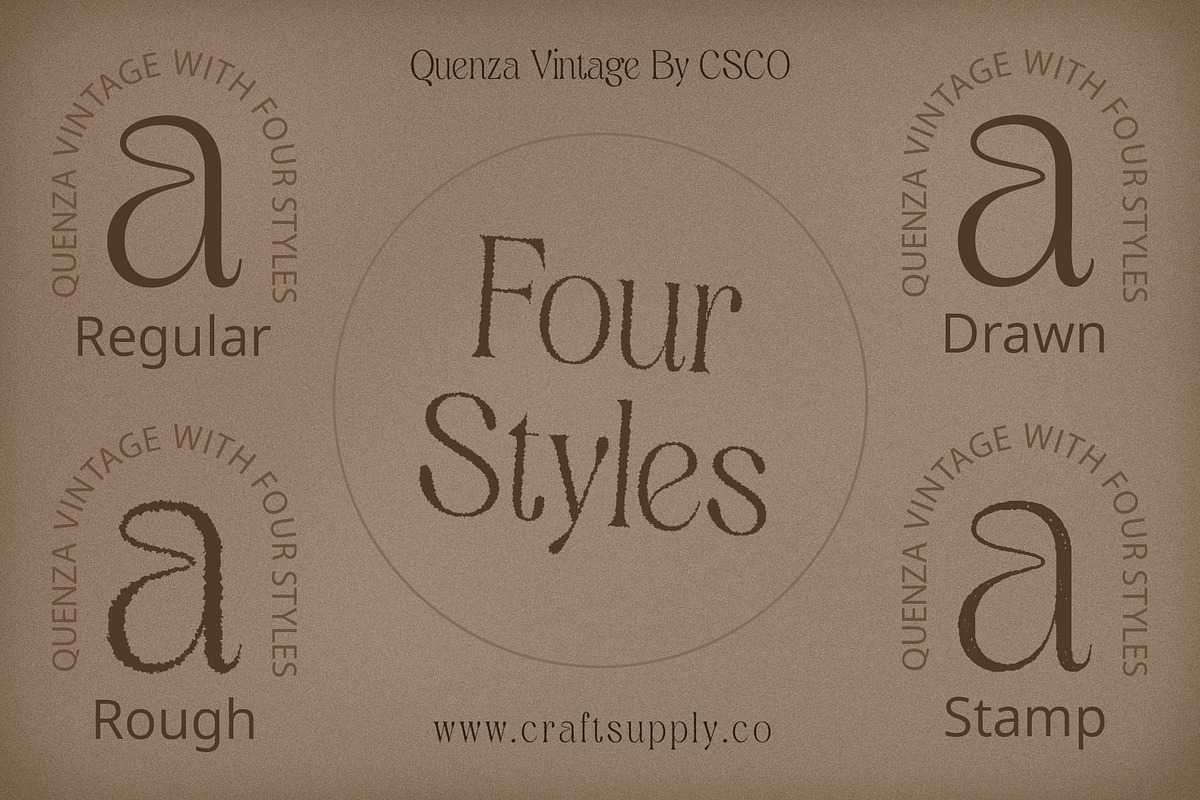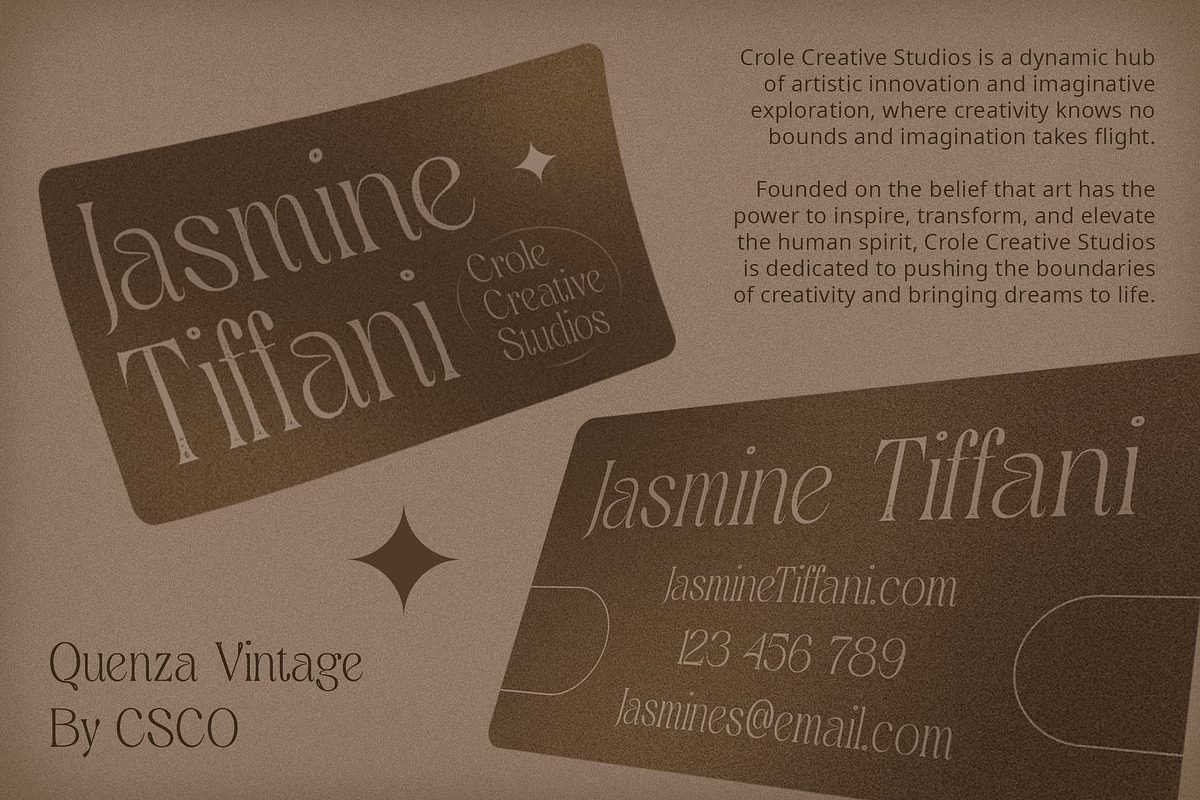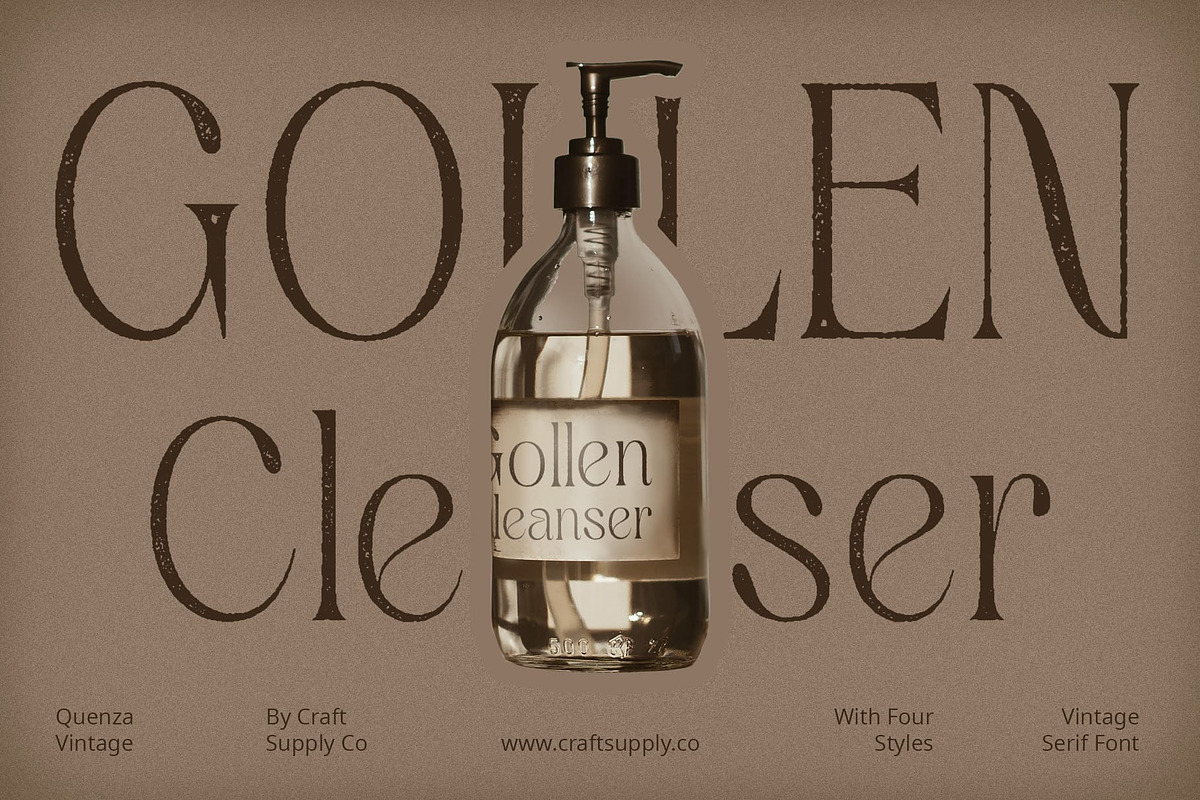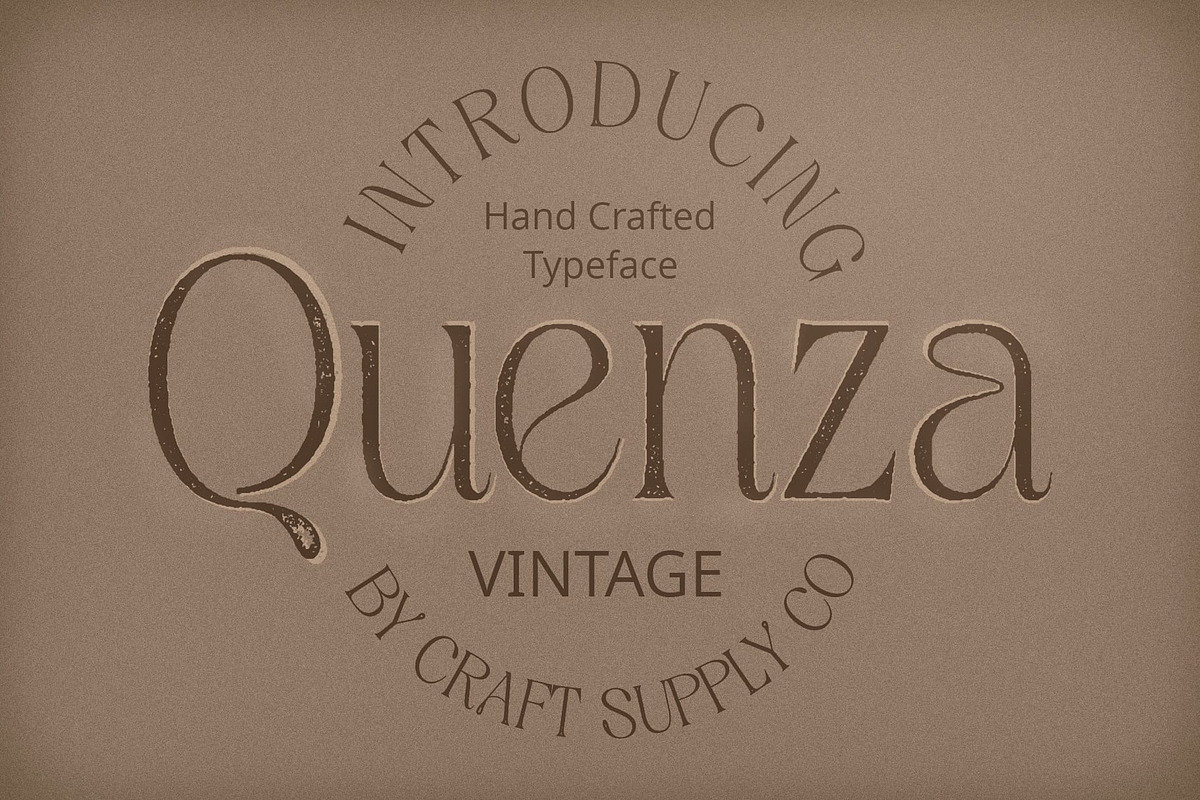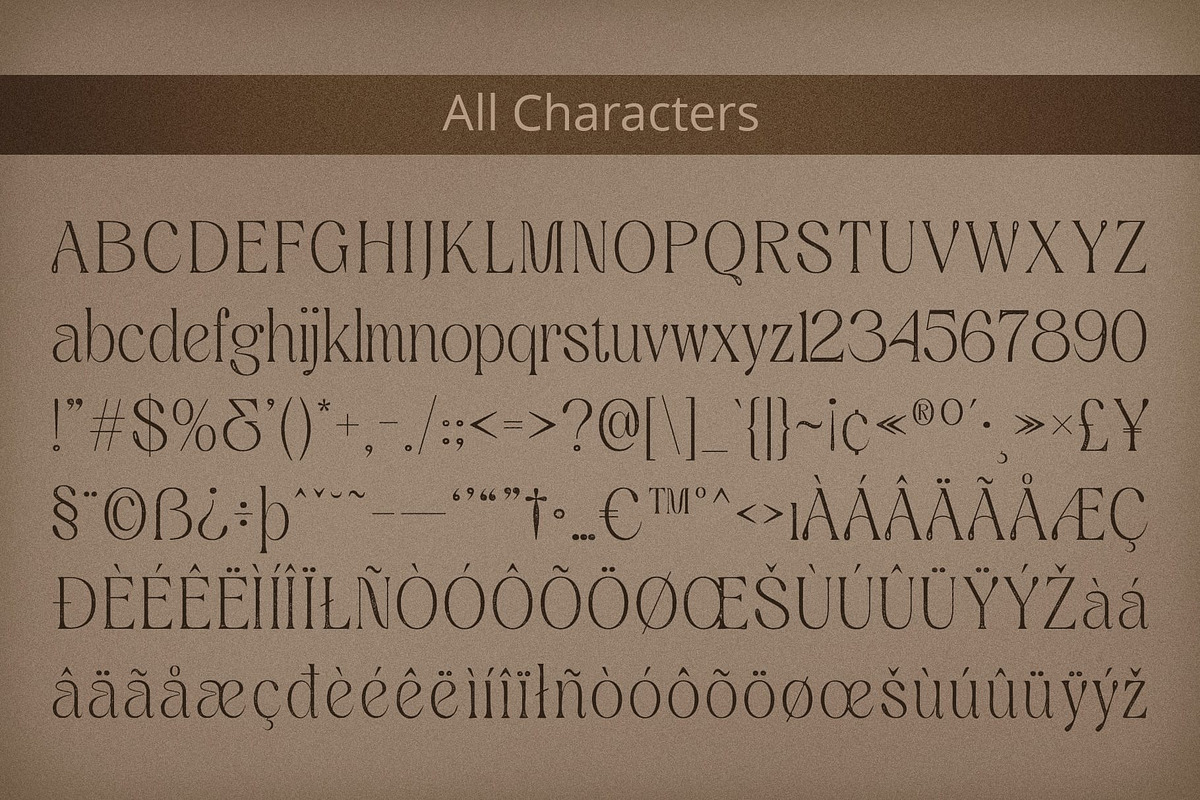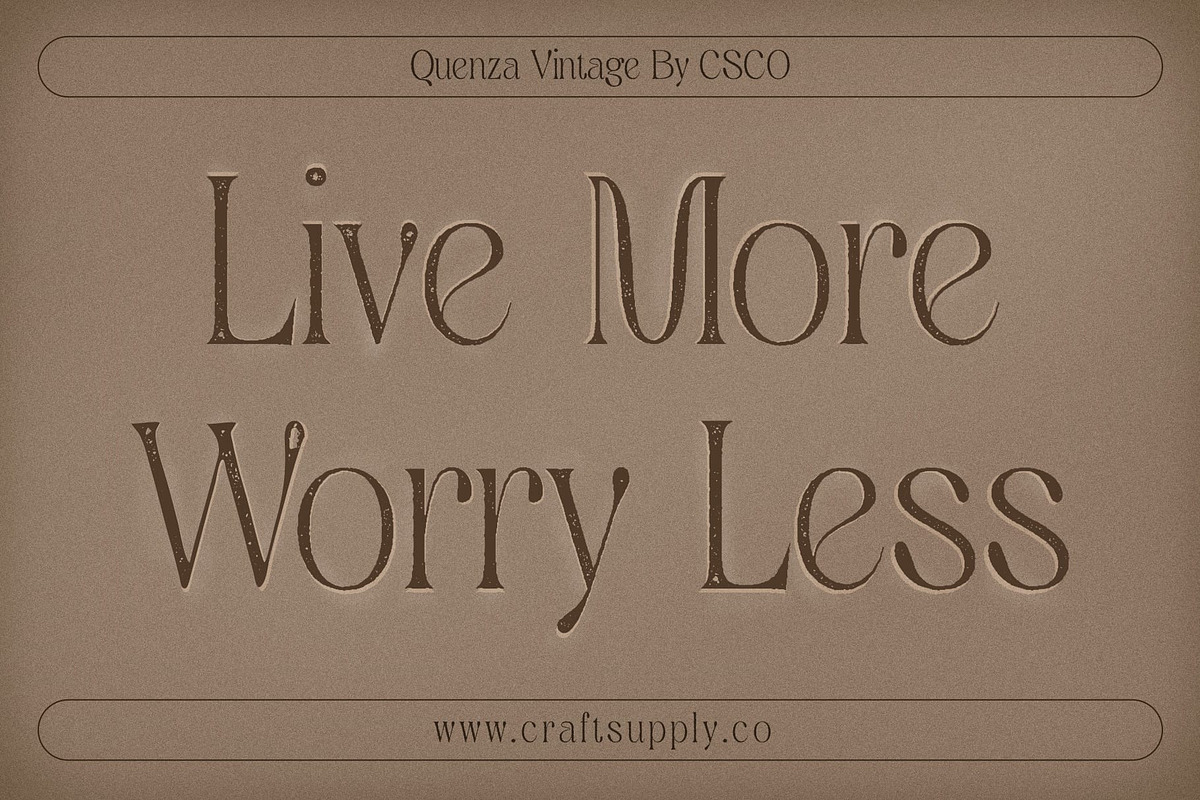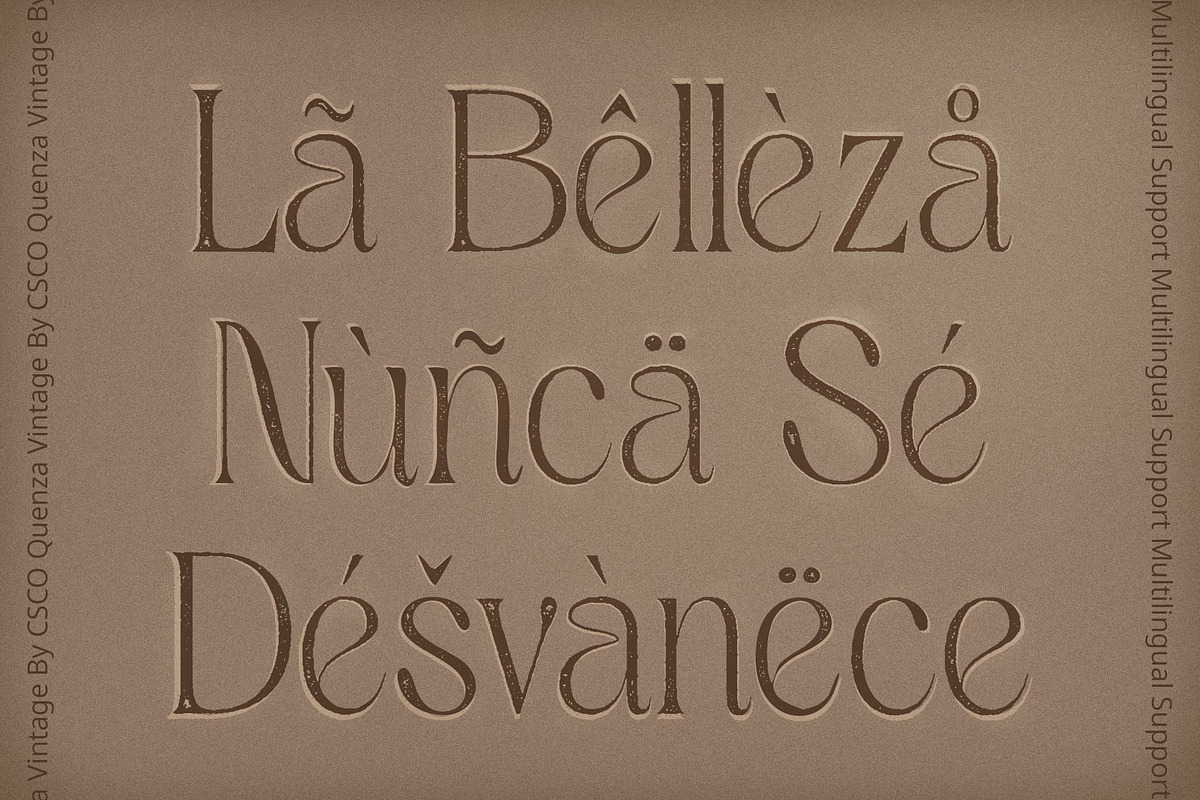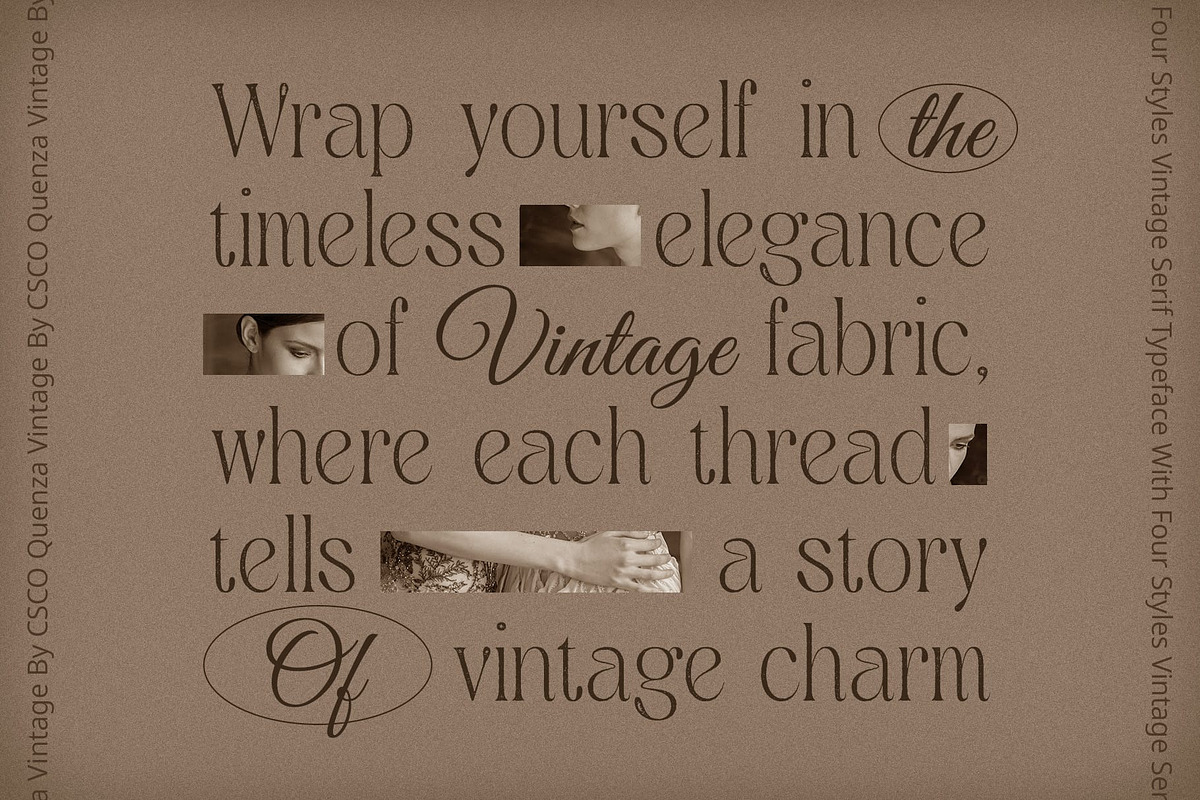
Quenza Vintage
Quenza Vintage: Timeless Retro Elegance
Classic Retro Serif Design Quenza Vintage boasts a classic retro serif design that exudes timeless elegance. Its serif characters evoke a sense of nostalgia and sophistication.
Rough Stamp Drawn Effect Enhanced with a rough stamp drawn effect, the font gains a vintage charm that sets it apart. Each character carries the authentic texture of handcrafted lettering, adding character to your designs.
Perfect for Display With its classic retro serif design and rough stamp drawn effect, This font is ideal for display purposes. It grabs attention and adds a touch of vintage flair to headlines, titles, and signage.
Versatile Application Despite its vintage appearance, This font is versatile in its application. From branding and packaging to posters and invitations, it lends a timeless elegance to any project.
Classic Charm with a Vintage Twist This font combines classic retro serif design with a rough stamp drawn effect, resulting in a font that exudes timeless charm and vintage appeal. Whether used for display or subtle accents, Quenza Vintage adds a touch of sophistication to any design project.
- Quenza Regular
- Quenza Drawn
- Quenza Rough
- Quenza Stamp